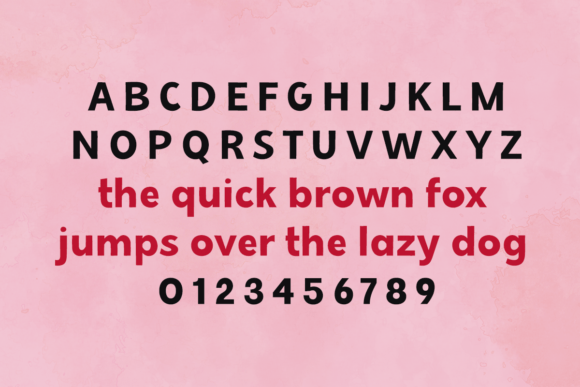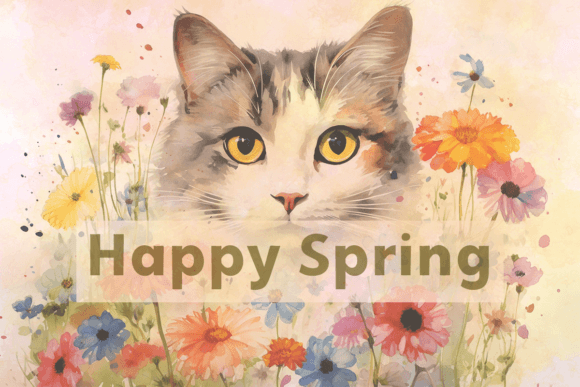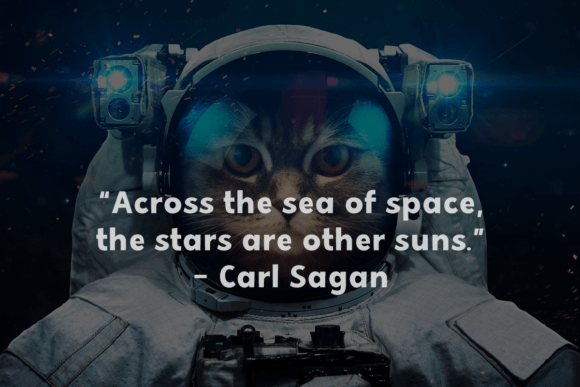
Introduction to Chonky Cat Font
Introducing Chonky Cat – a playful and charismatic bold sans serif typeface that is sure to make a statement in any design.
This font exudes a sense of confidence and charm, with its thick and rounded letterforms giving it a friendly and approachable appearance Perfect for headlines, logos, posters, and any design where you want to stand out and make an impact, Chonky Cat will bring a touch of whimsy to your creations.